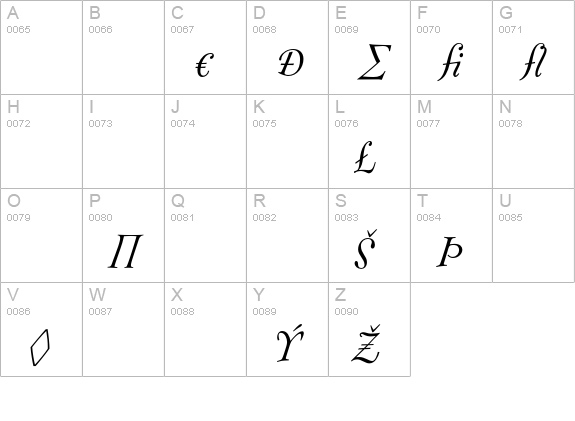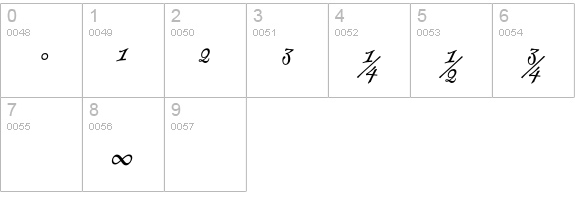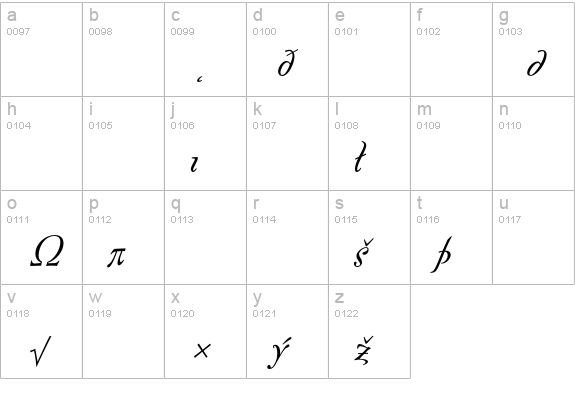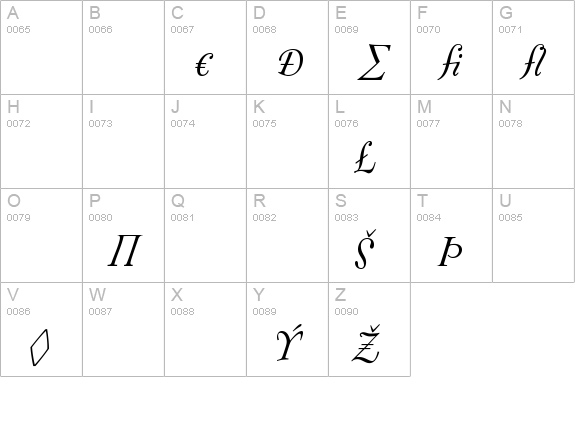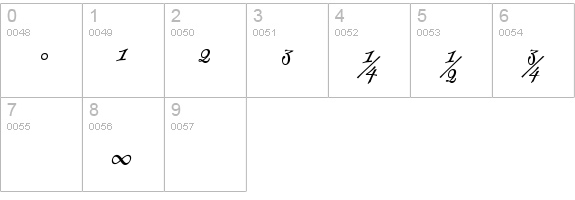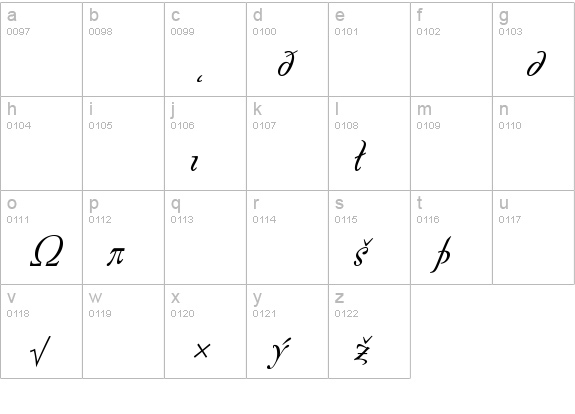
FontesqueText-ItalicExpert is a stylish and elegant italic font that exudes sophistication and charm. Its delicate letterforms and graceful curves make it perfect for adding a touch of class to any design project. Whether you're working on a wedding invitation, a brand logo, or a magazine layout, this font will elevate your work to the next level. What sets FontesqueText-ItalicExpert apart is not only its beauty but also the fact that it is available for free download at FontsMarket.com. This means you can enjoy the high-quality design and versatility of this font without any cost, making it an excellent choice for both personal and commercial use. With FontesqueText-ItalicExpert, you can effortlessly create professional-looking designs that stand out from the crowd. Its timeless appeal and versatility make it a must-have font for any designer looking to make a lasting impression. Download FontesqueText-ItalicExpert today and take your projects to new heights!